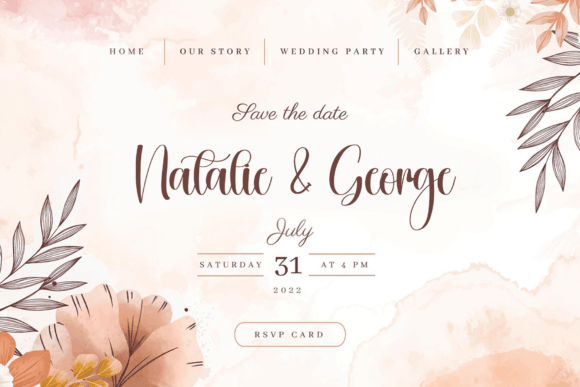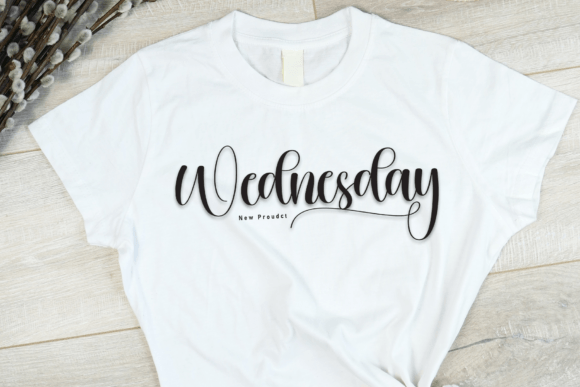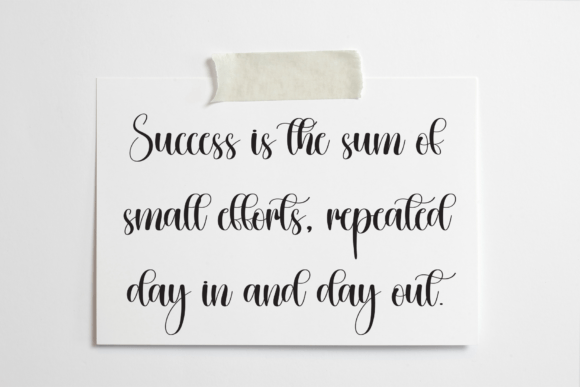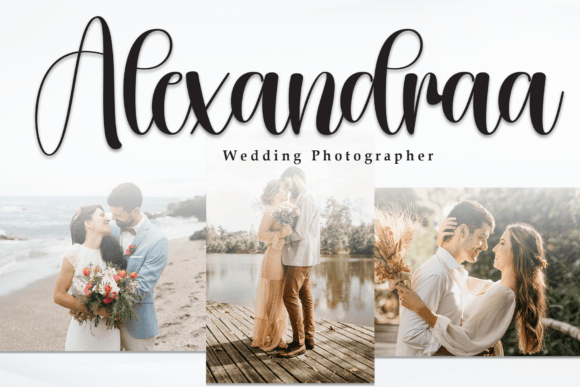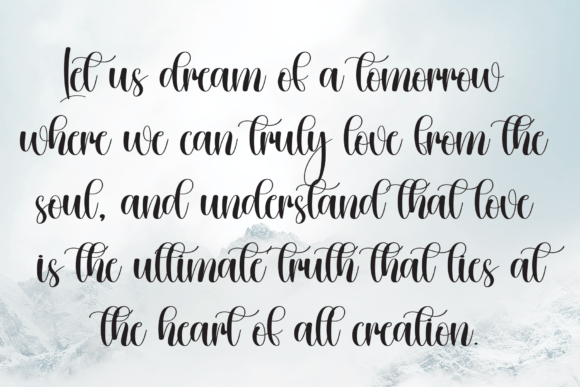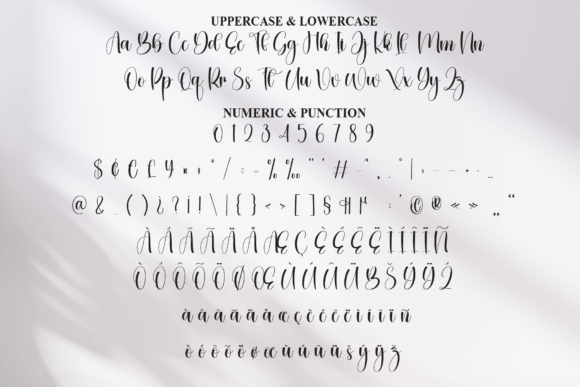
The Power of Bundling Font: Elevating Your Design Experience
Have you ever been in the middle of a creative project, only to get stuck because you couldn’t find the perfect font to match your vision? The frustration is real, but what if you could have all the tools you need right at your fingertips?
Bundling a font is a game-changer for designers. By putting together the font files and any extra goodies, like design guides or examples, into one package, you can make it easier for people to download and use the font on their computers or projects. This means less time searching for resources and more time focusing on what matters – creating something amazing.
Bundling Font Key Features
- Unique Character Set: Bundling Font includes a wide range of characters, including Latin, Cyrillic, Greek, and many special characters, making it suitable for multilingual applications.
- Font Styling: Bundling Font supports various font styles, including bold, italic, and bold-italic, allowing users to create visually appealing text.
- Scalability: Bundling Font is designed to be scalable, making it ideal for use in various applications, including web design, printing, and mobile devices.
Bundling Font Review
I recently had the chance to work with the Bundling Font, and I must say it’s a solid addition to any design project. Here’s my honest review:
- Beautiful typography: The Bundling Font boasts elegant, modern letterforms that elevate any text-based element.
- High-quality font files: The font files are well-crafted, resulting in crisp and clear rendering across various devices and screen sizes.
- Wide character set: The font includes a comprehensive character set, making it suitable for use in multiple languages.
- Limited font styles: While the font is available in several weights, it may not offer the same level of variation as other popular fonts.
- Not ideal for small text: Due to its elegant design, the Bundling Font may not be the best choice for small text or body copy.
The Bundling Font is a stylish and versatile font that can add a touch of sophistication to any design project. While it may have some limitations, its high-quality typography and comprehensive character set make it a solid choice for designers looking to elevate their work.